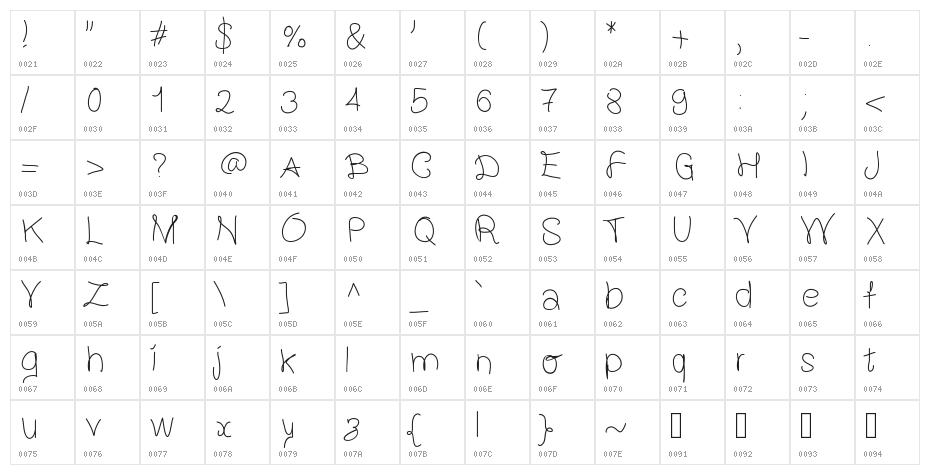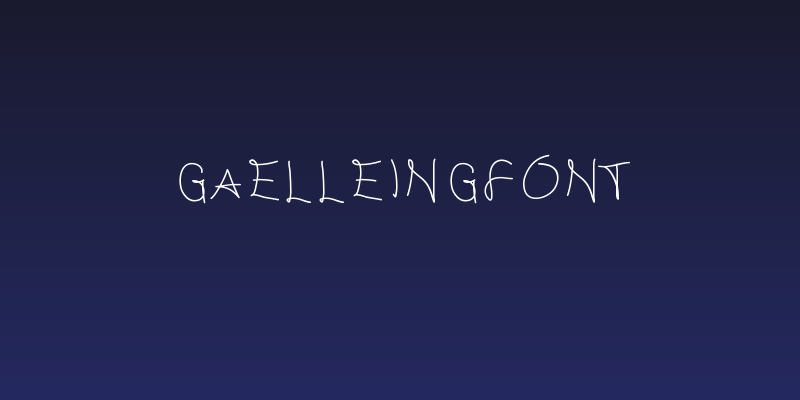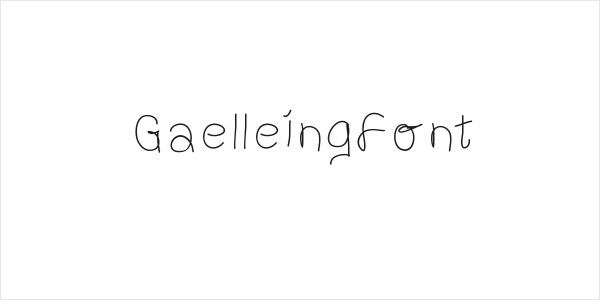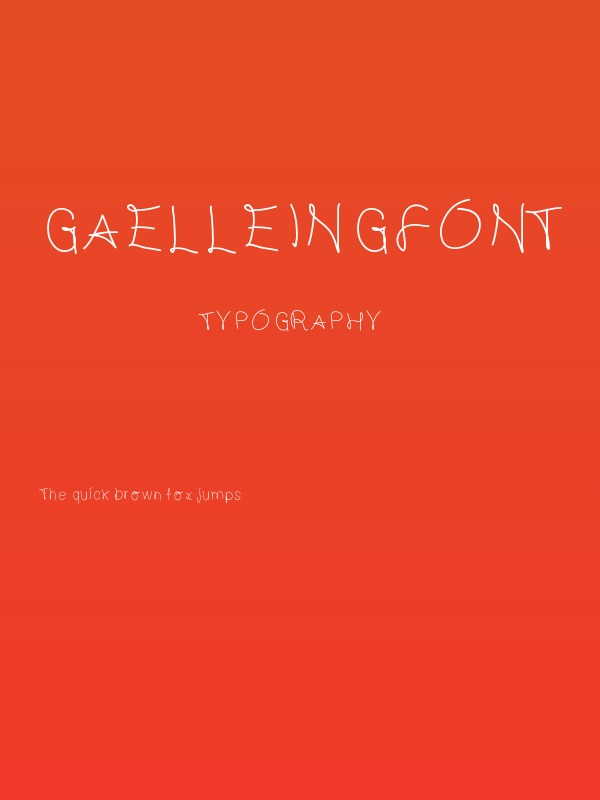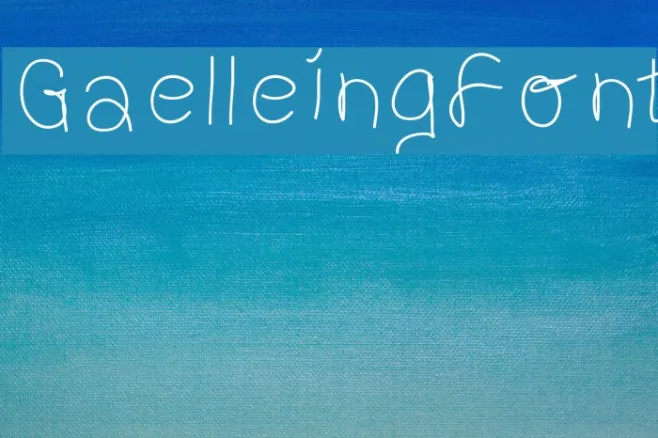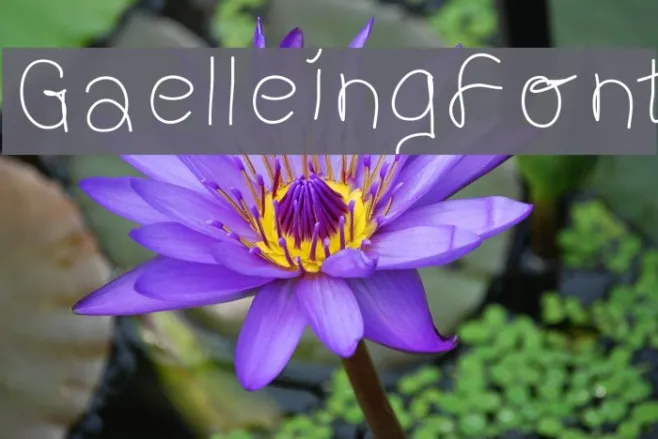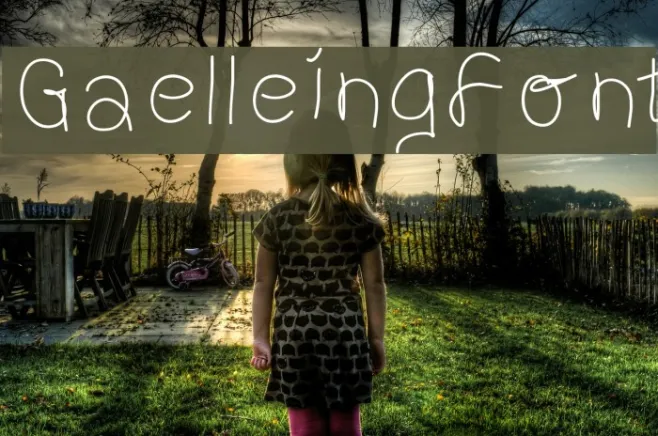
GaelleingFont Font
GaelleingFont Description
This font features a whimsical and playful design, characterized by its curly and flowing letterforms. The strokes are thin and exhibit a consistent width, giving it a light and airy feel. The uppercase letters have a distinctive looped style, while the lowercase letters maintain a more casual and relaxed appearance. The numerals and special characters follow the same playful theme, making the font suitable for creative and informal applications. Its unique style is perfect for projects that require a touch of fun and creativity.
| Proposed Projects | Ideal for children's books, greeting cards, playful branding, and creative invitations. |